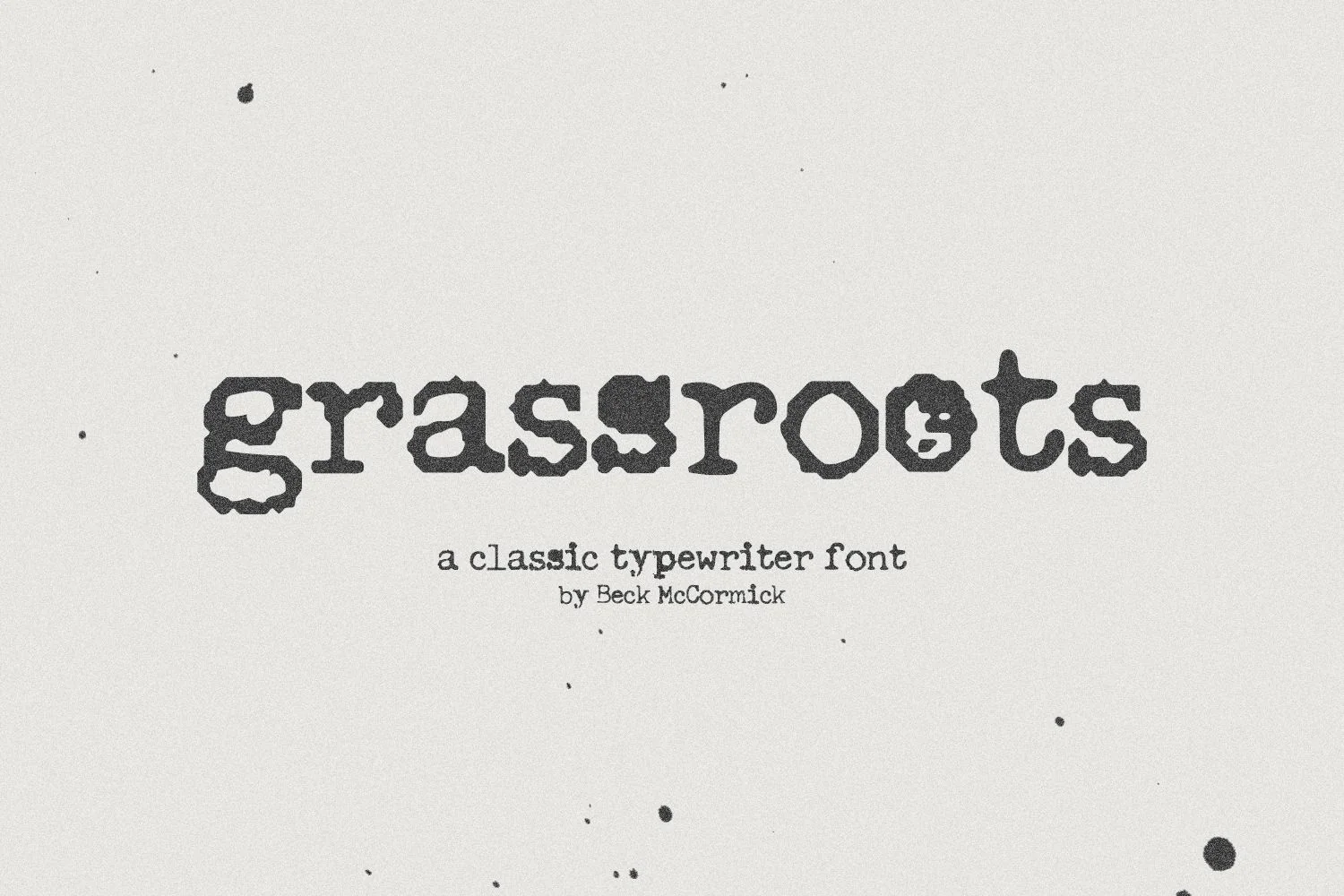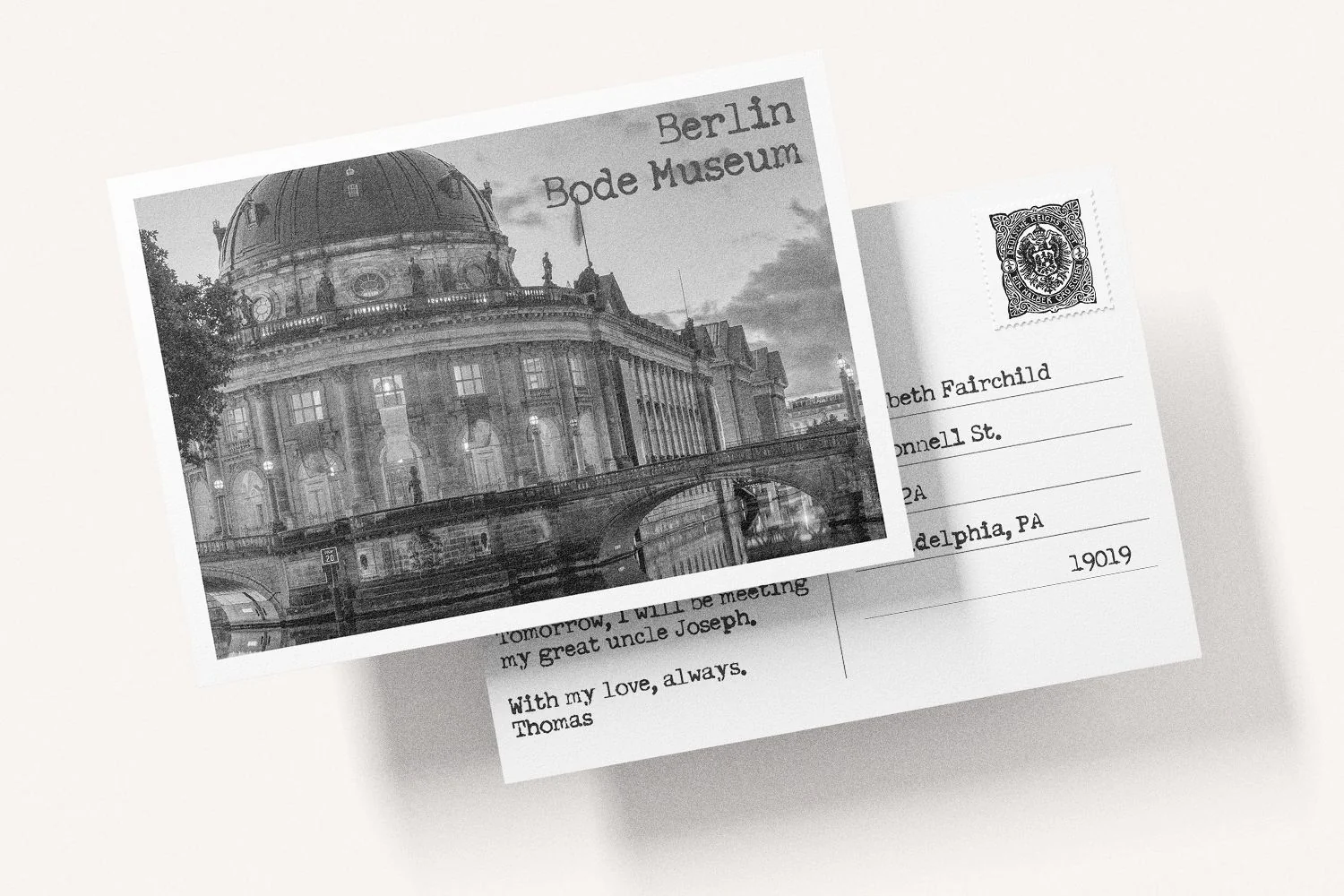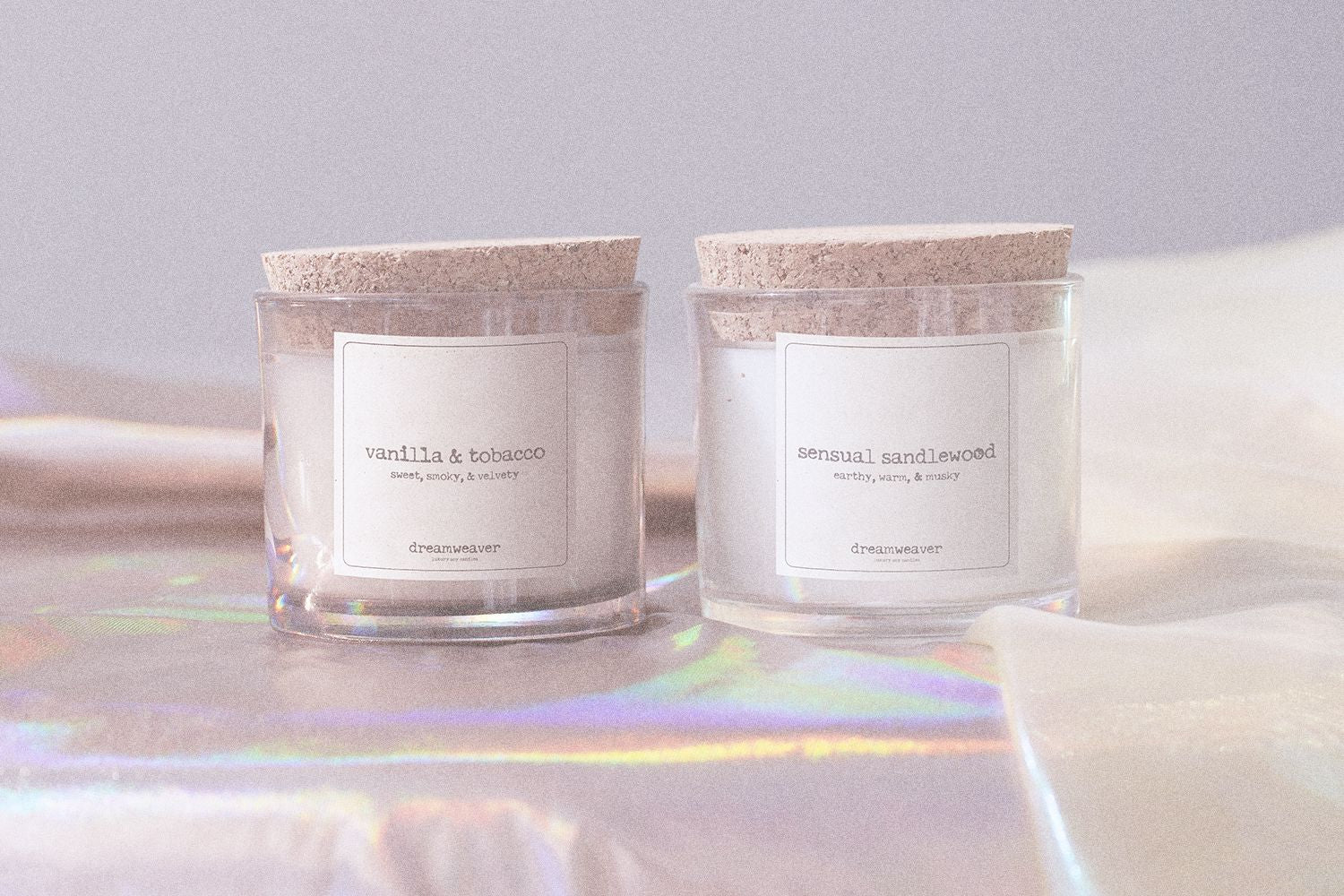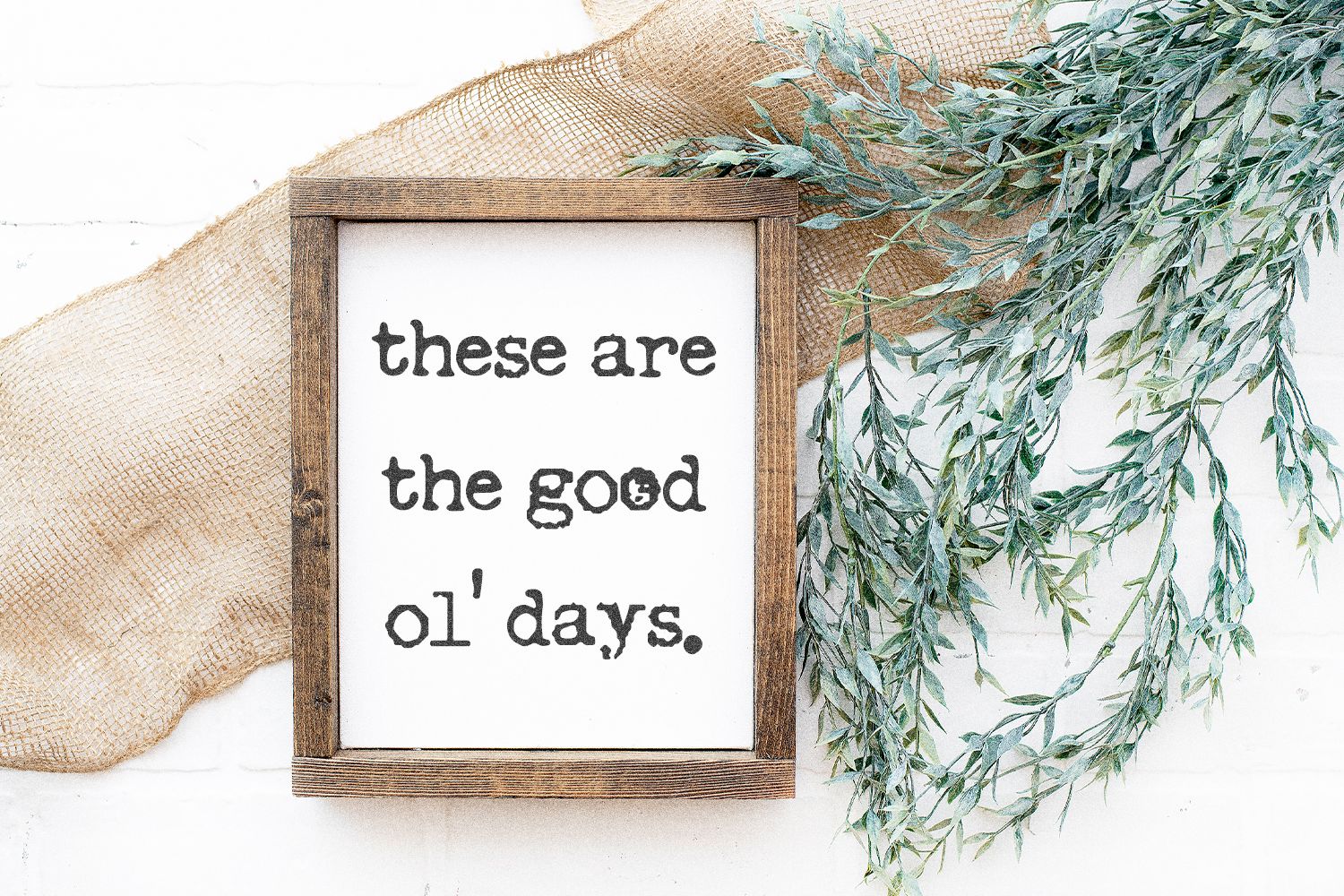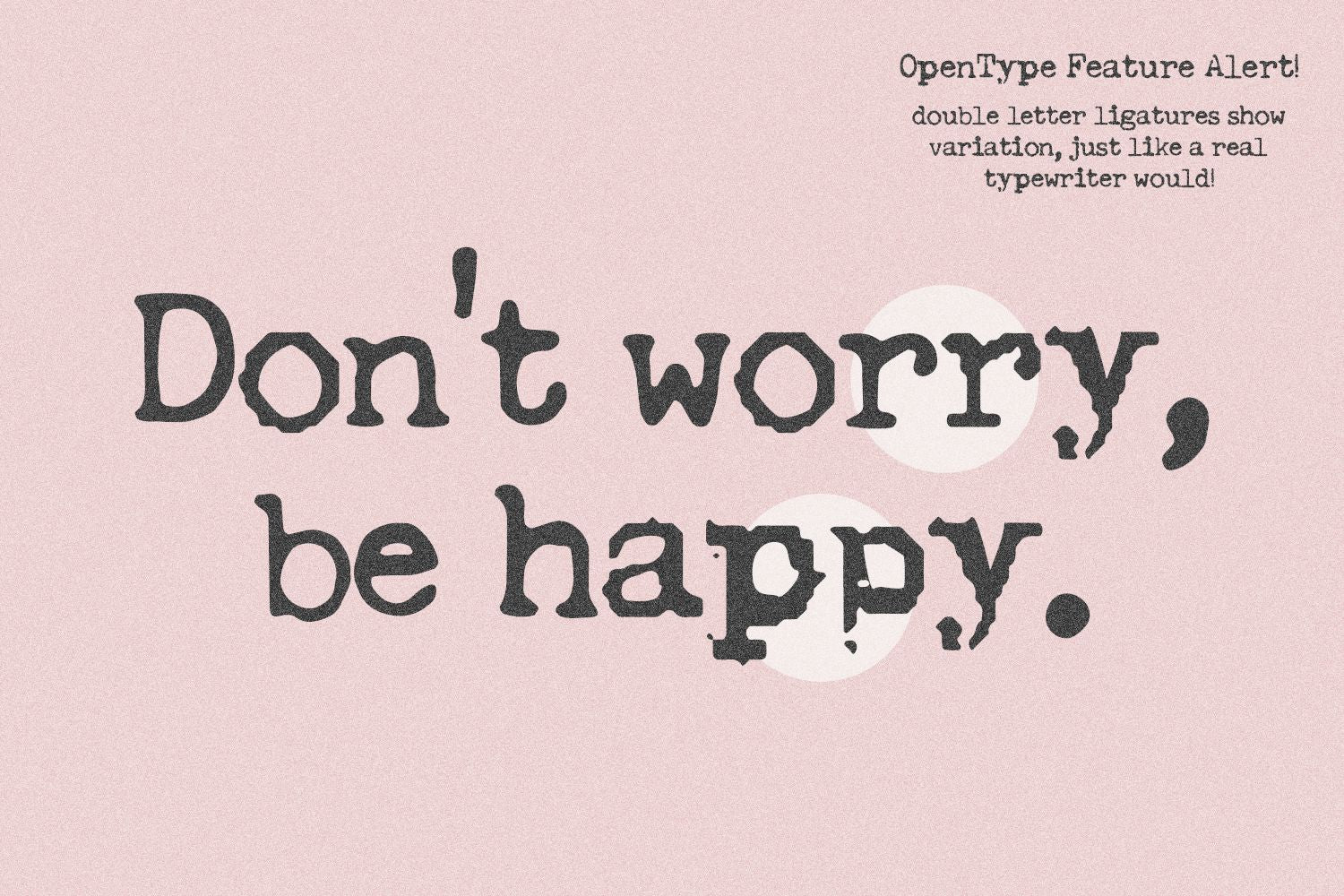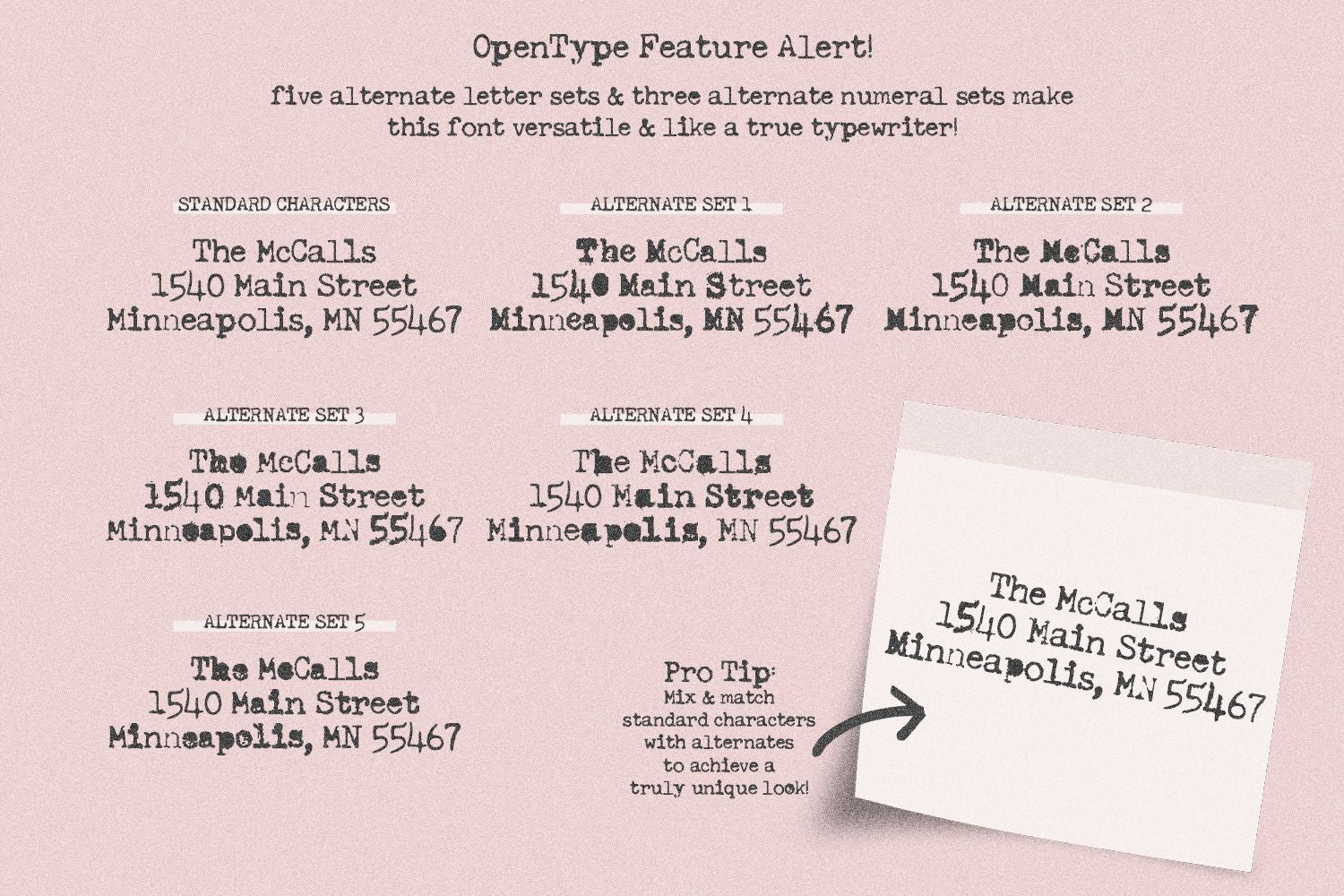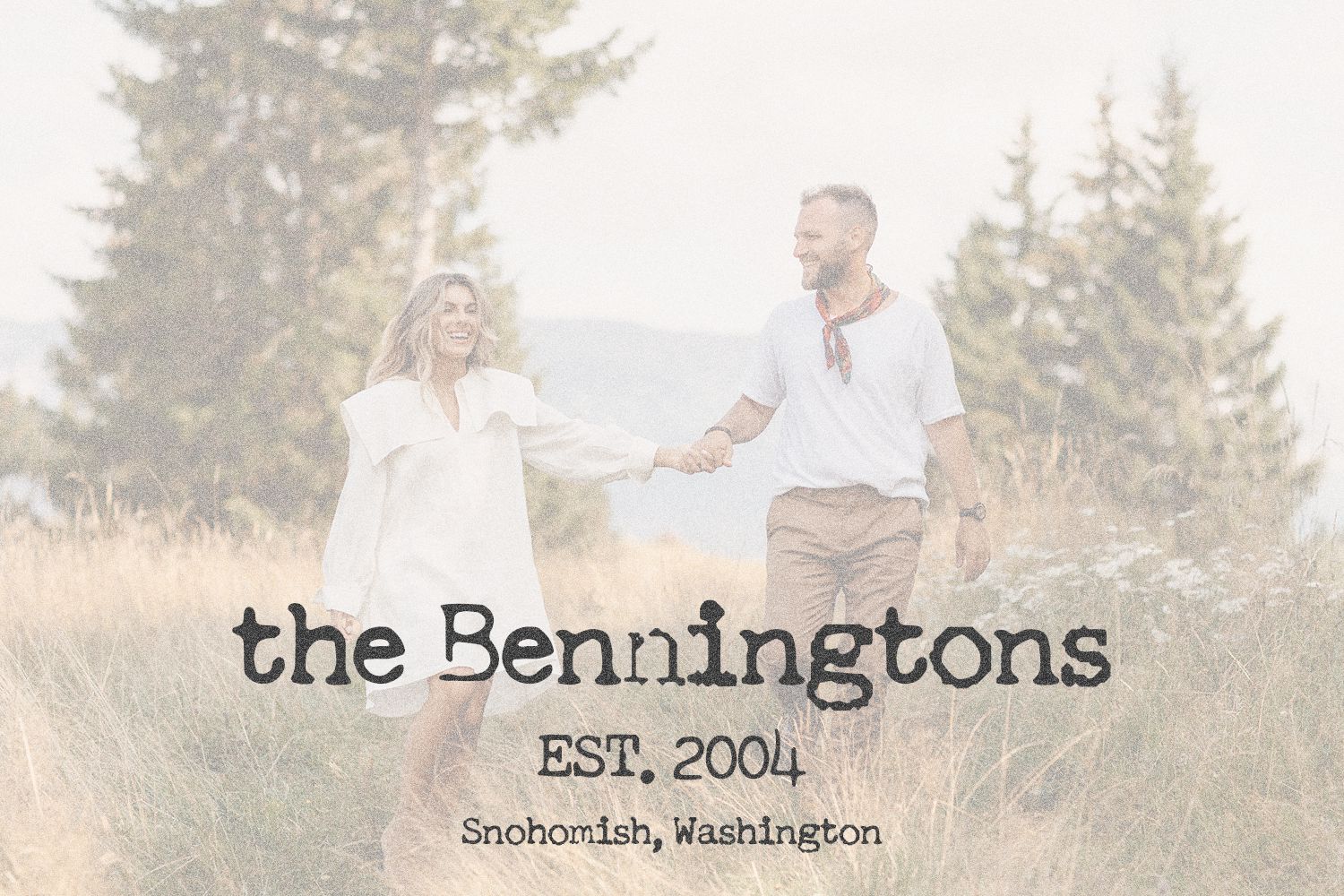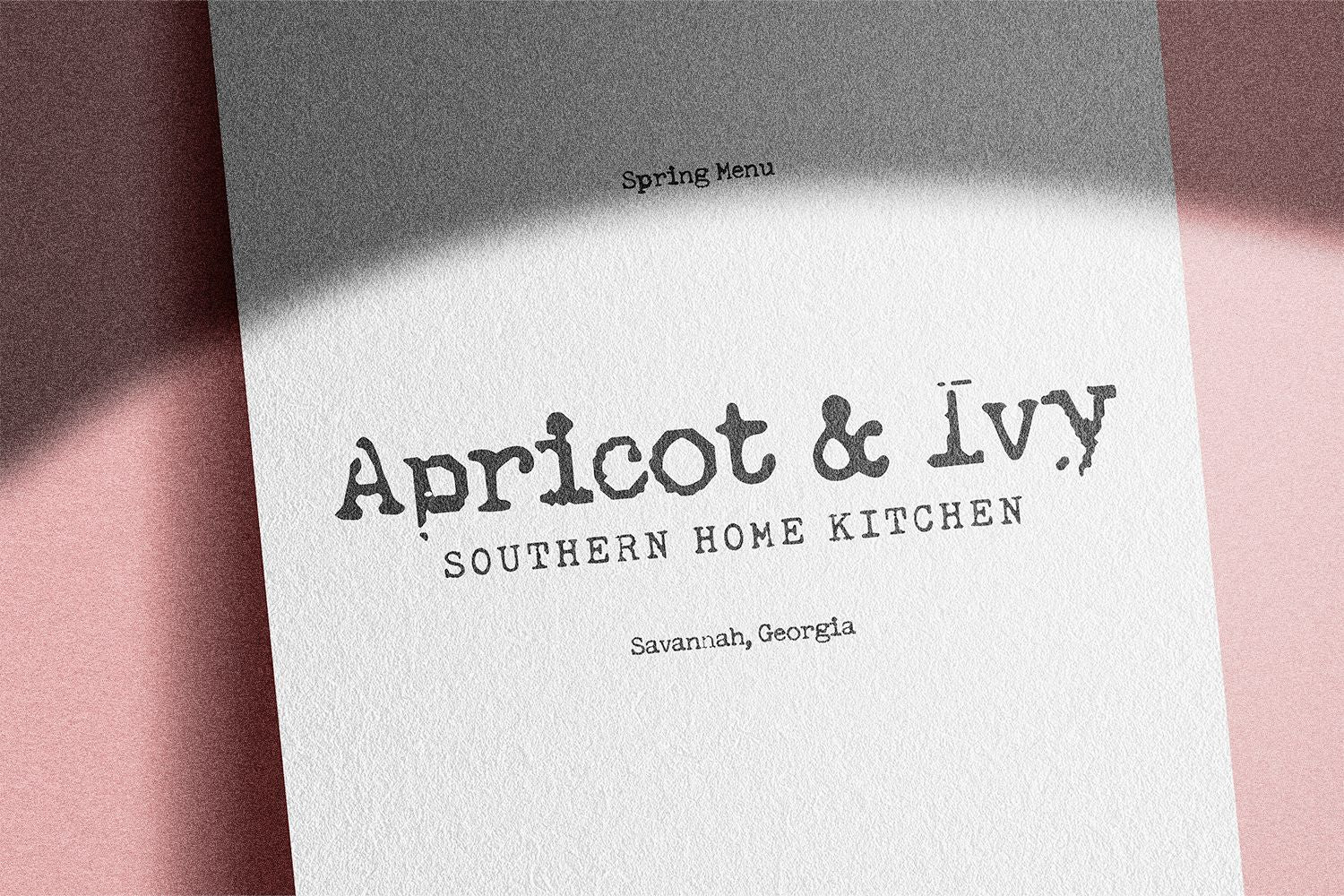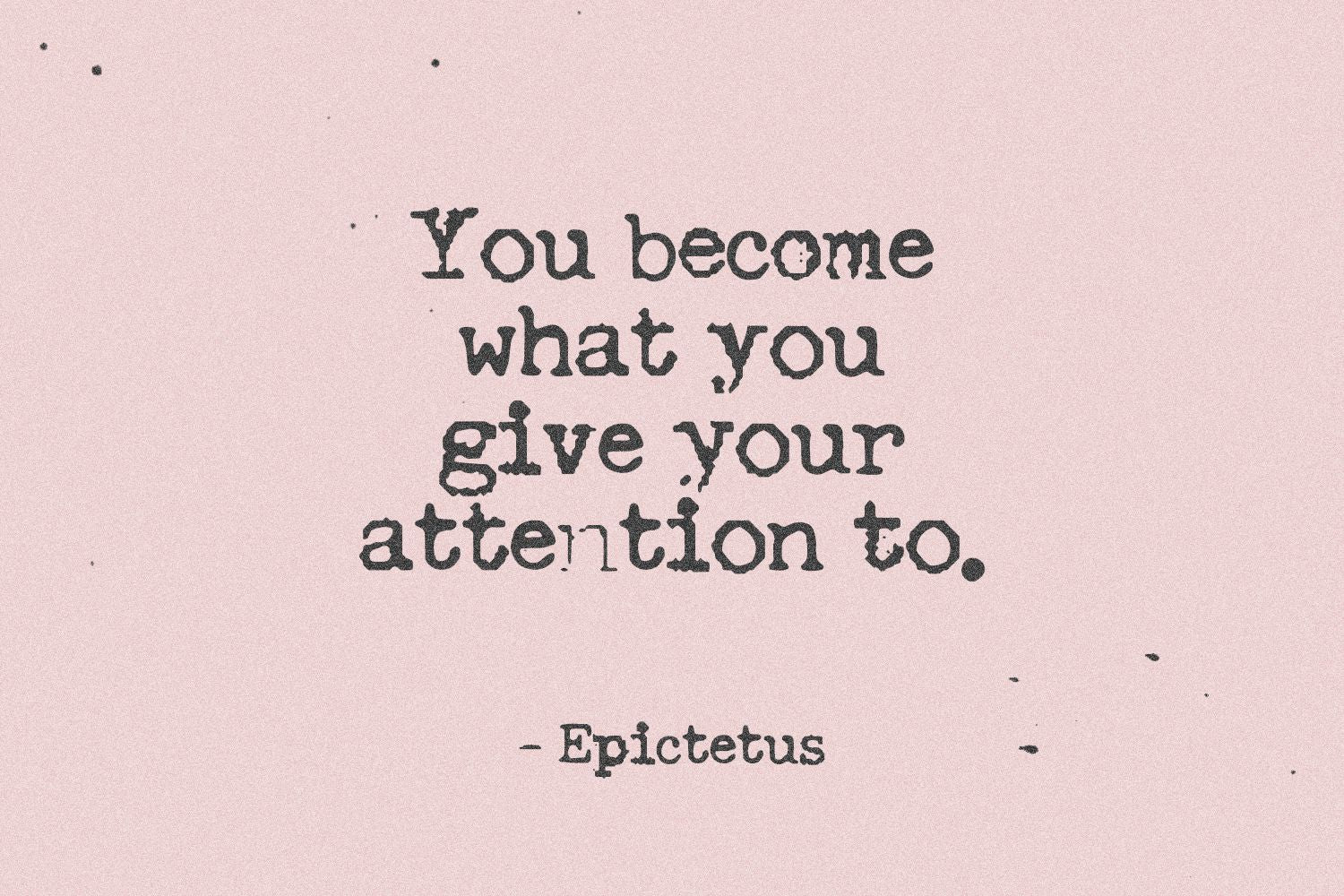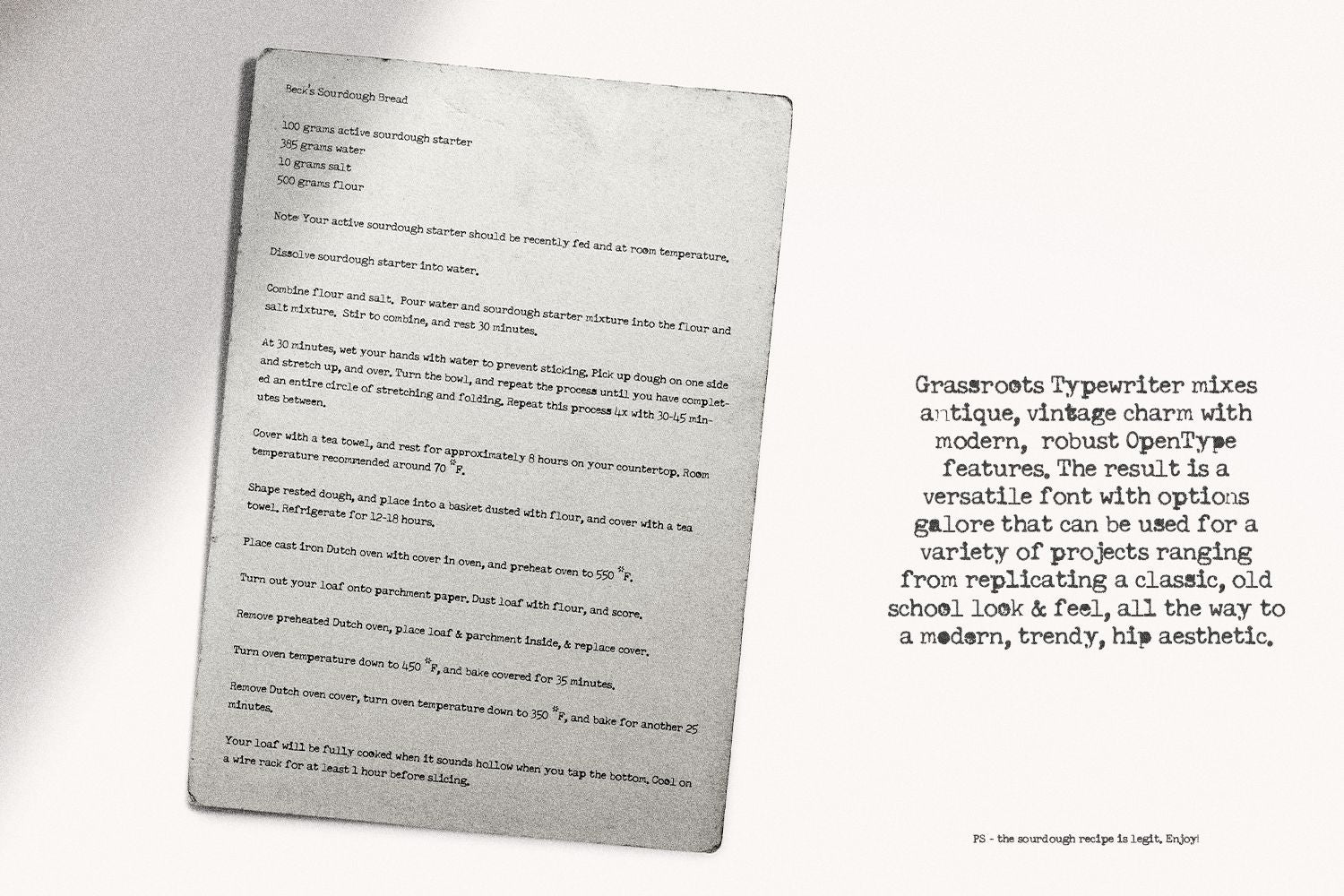
Grassroots Typewriter Font
Introducing Grassroots, a classic typewriter serif. This font was inspired by a 1950’s Royal Quiet De Luxe Typewriter, and features textured letters & symbols, creating a realistic look & feel without needing to source your own antique machine! (Or spend an arm & a leg in the process!)
Each keystroke on an old typewriter shows variations based on the ink ribbon & how hard or soft the typebars strike the ribbon & paper. This font was designed to provide multiple options for each letter so that you can further customize the look & feel of your text. Choose from lightly textured letters, all the way to grimy, inky letter variations! This font also includes double letter ligatures for all capital & lowercase letters to provide a more realistic experience when hitting the same letter key twice in rapid succession.
Grassroots mixes antique, vintage charm with modern, robust OpenType features. The result is an incredibly versatile font with options galore, which can be used for a variety of projects ranging from replicating a classic, old school look & feel, all the way to a modern, trendy, hip aesthetic.
Grassroots is best for:
- rustic farmhouse decor and crafts
- bold, edgy logos + branding
- posters & labels
- product packaging
- greeting cards & scrapbooking
- website design + website accents, blog design
- graphic tee shirt design & other apparel
Grassroots includes:
- full uppercase and lowercase characters
- five alternate upper & lowercase character sets (totaling 260 alternate characters)
- three alternate number sets (totaling 30 alternate characters)
- 52 double letter ligatures
- 1 alternate at symbol, 2 alternate ampersands